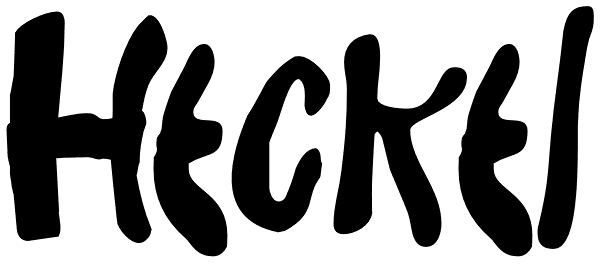
Heckel
Erich Heckel (1883 - 1970) was a German painter and printmaker. He was a founding member of Die Brücke (The Bridge), a group of German expressionists. Heckel font somewhat resembles the loose (and messy) handwriting Erich Heckel used in some of his...